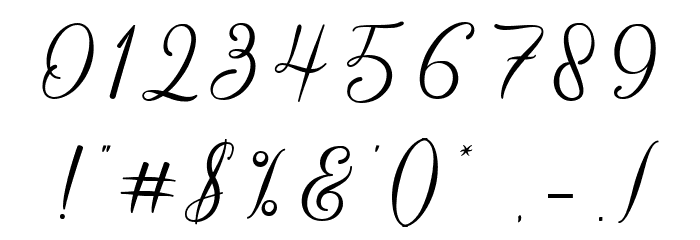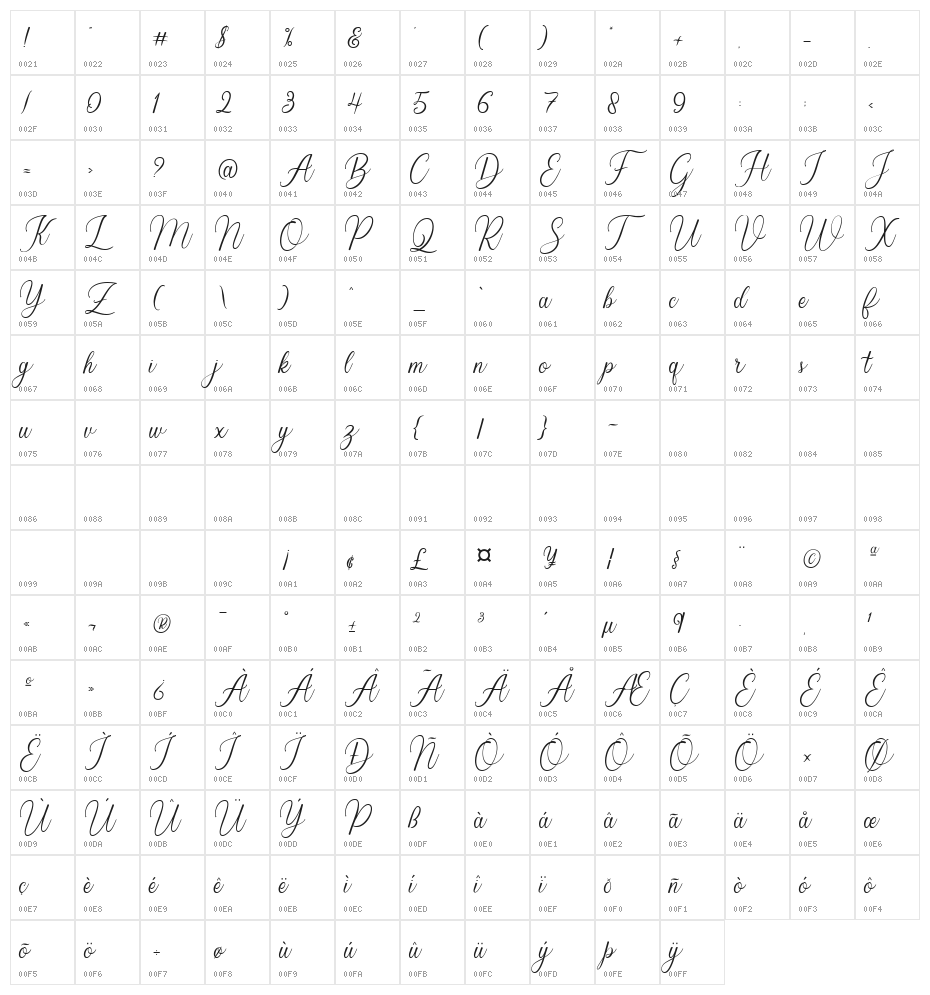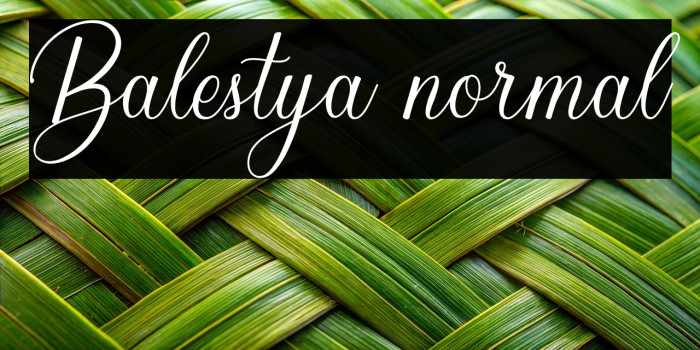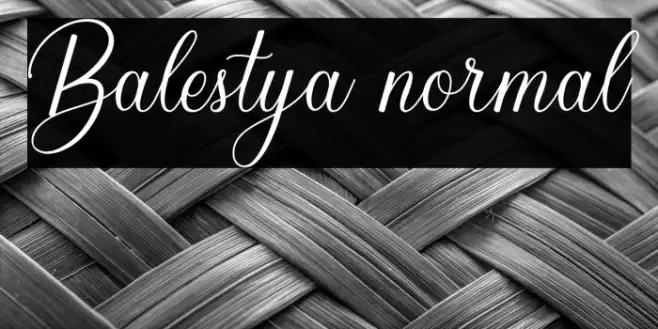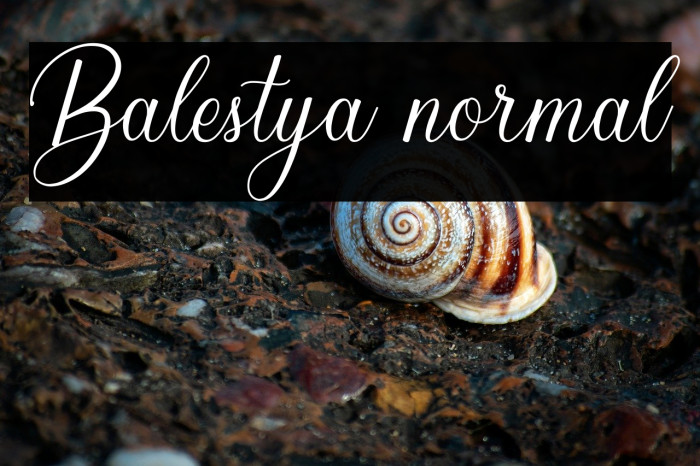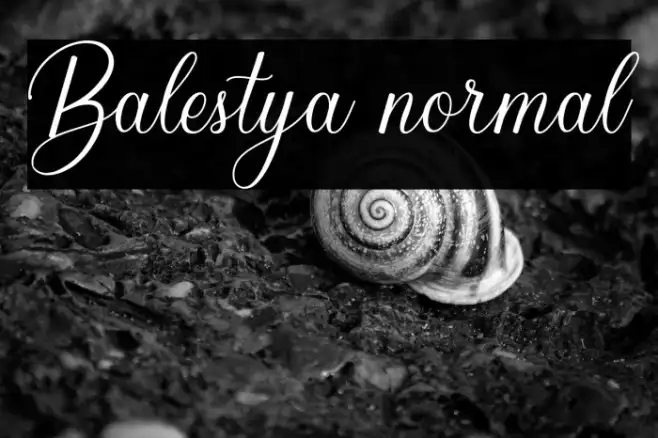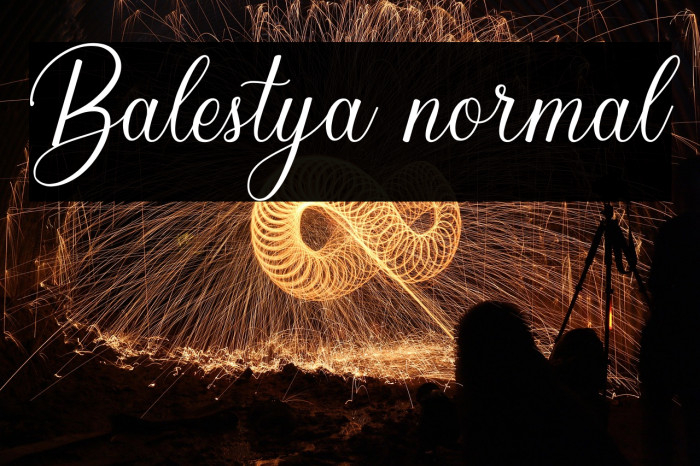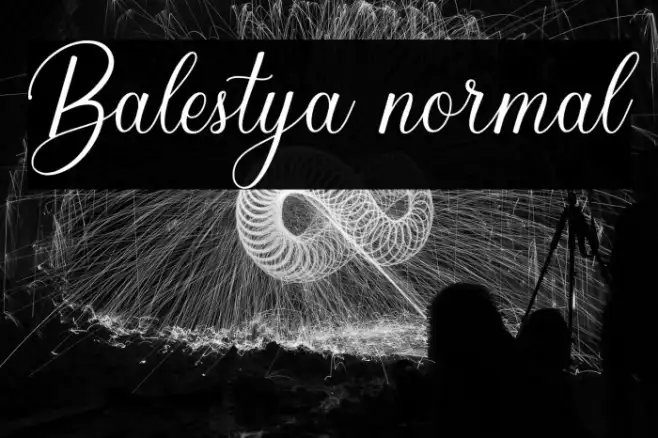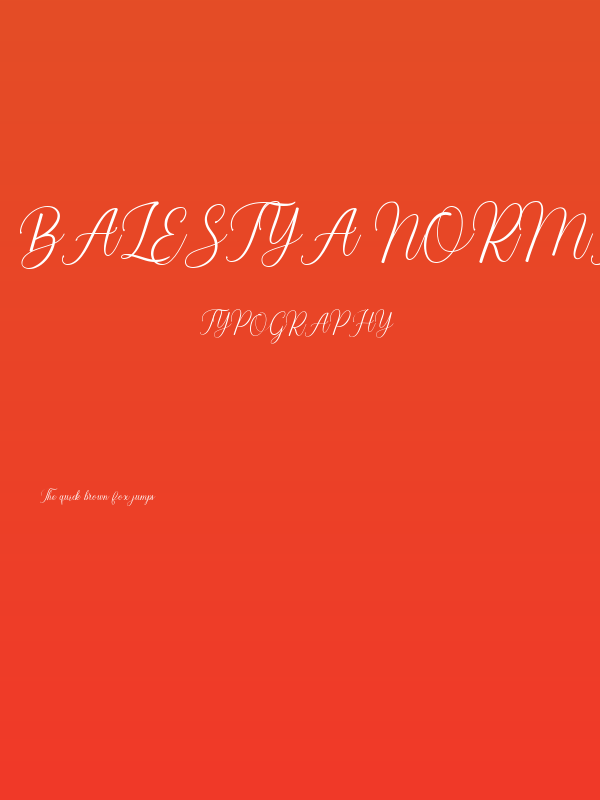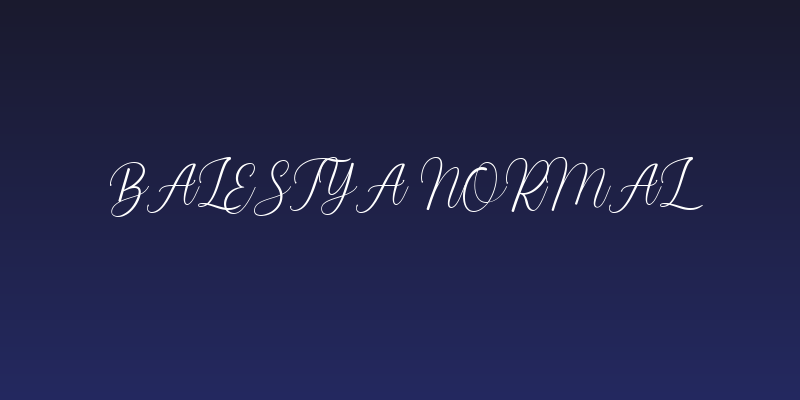
Balestya normal Font
Balestya normal Description
This font exudes elegance and sophistication with its flowing, cursive style. The characters are intricately designed, featuring smooth curves and delicate loops that give it a graceful appearance. The uppercase letters are slightly more ornate, with extended flourishes that add a touch of drama. The lowercase letters maintain a consistent flow, making the font highly legible despite its decorative nature. The numerals and special characters are crafted with the same attention to detail, ensuring a cohesive look across all text elements. This font is perfect for projects that require a touch of elegance and refinement.
| Use Case | Invitations, Branding, Editorial Design |
| Proposed Projects | Ideal for wedding invitations, elegant branding, luxury product packaging, and sophisticated editorial design. |